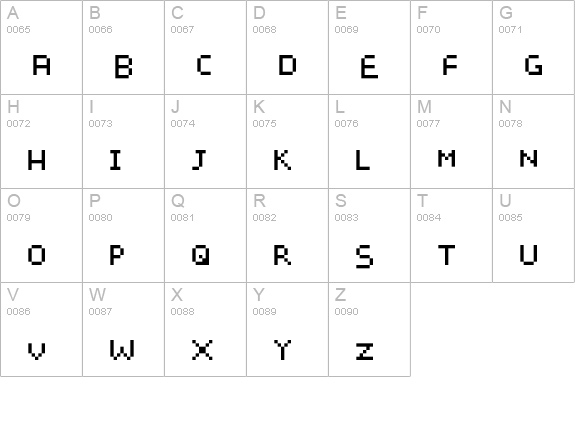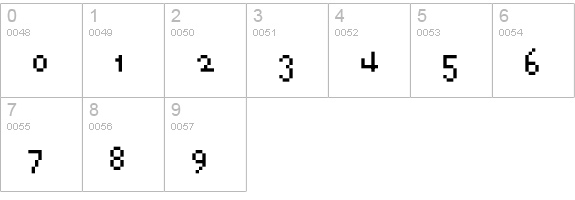
nari9 Font Details
Introducing Nari9 Font, a modern and elegant typeface that exudes sophistication and style. With its sleek lines and contemporary design, Nari9 Font is perfect for a wide range of projects, from branding to editorial design. This versatile font is free to download at FontsMarket.com, making it accessible to designers and creatives looking to add a touch of sophistication to their work. Whether you're creating a logo, website, or print materials, Nari9 Font is sure to elevate your design and leave a lasting impression. Download this stunning font today and unleash your creativity with Nari9 Font.